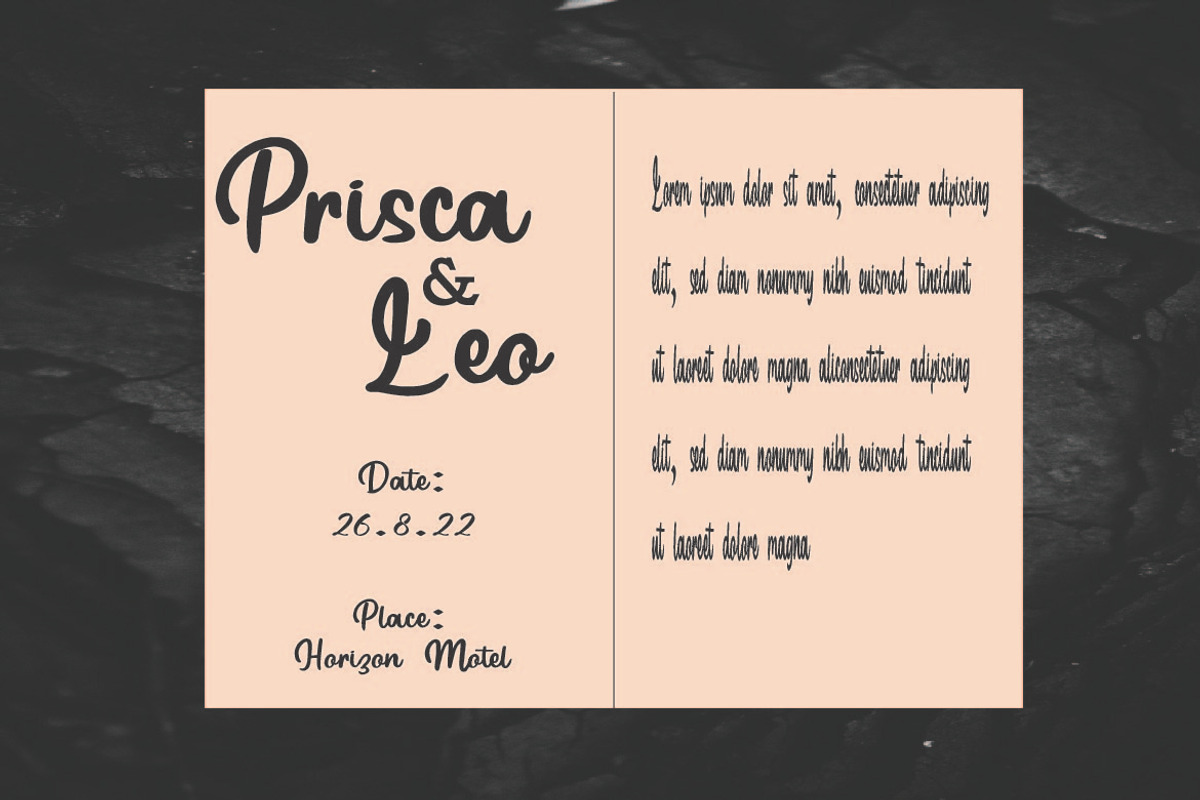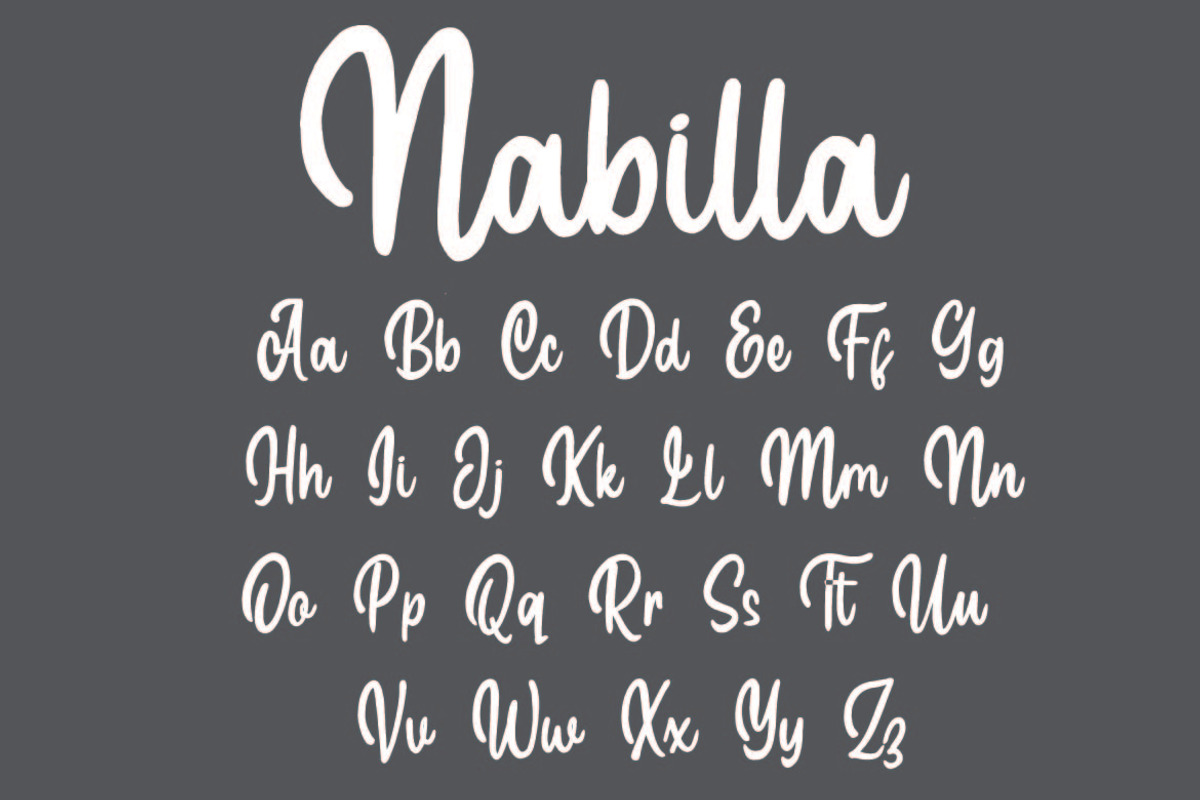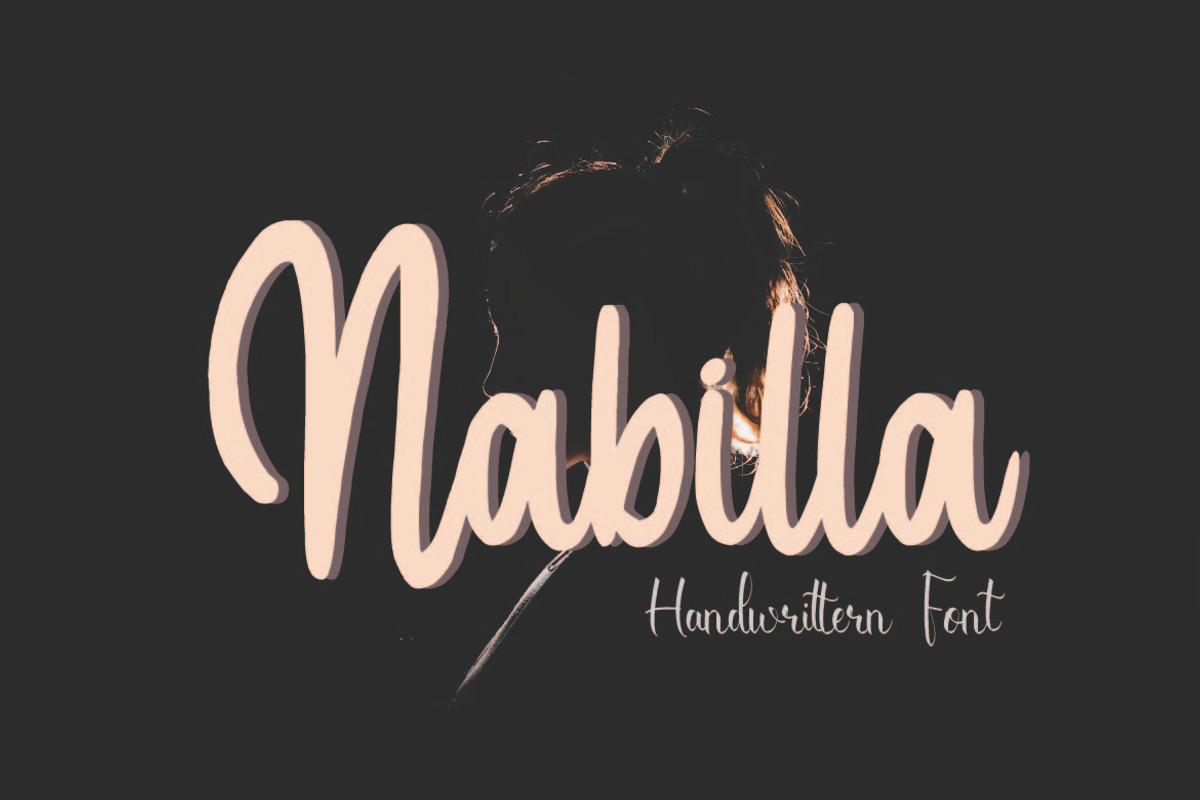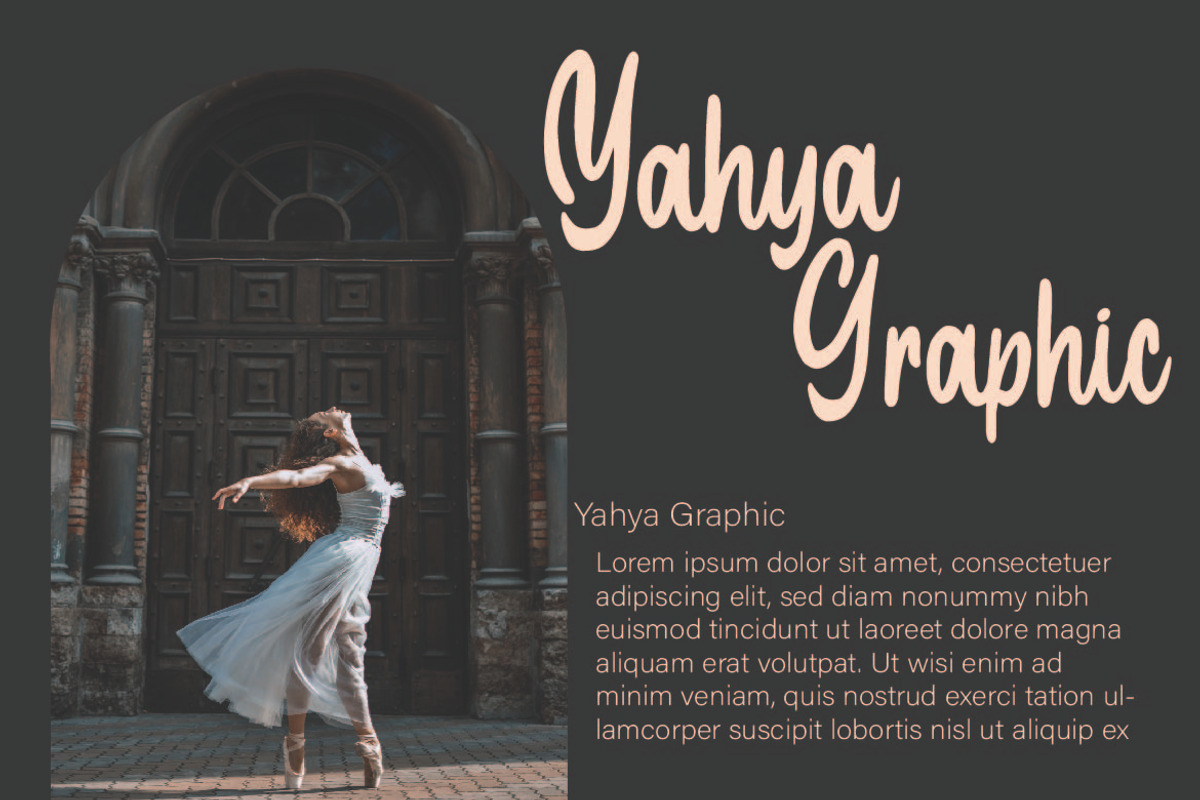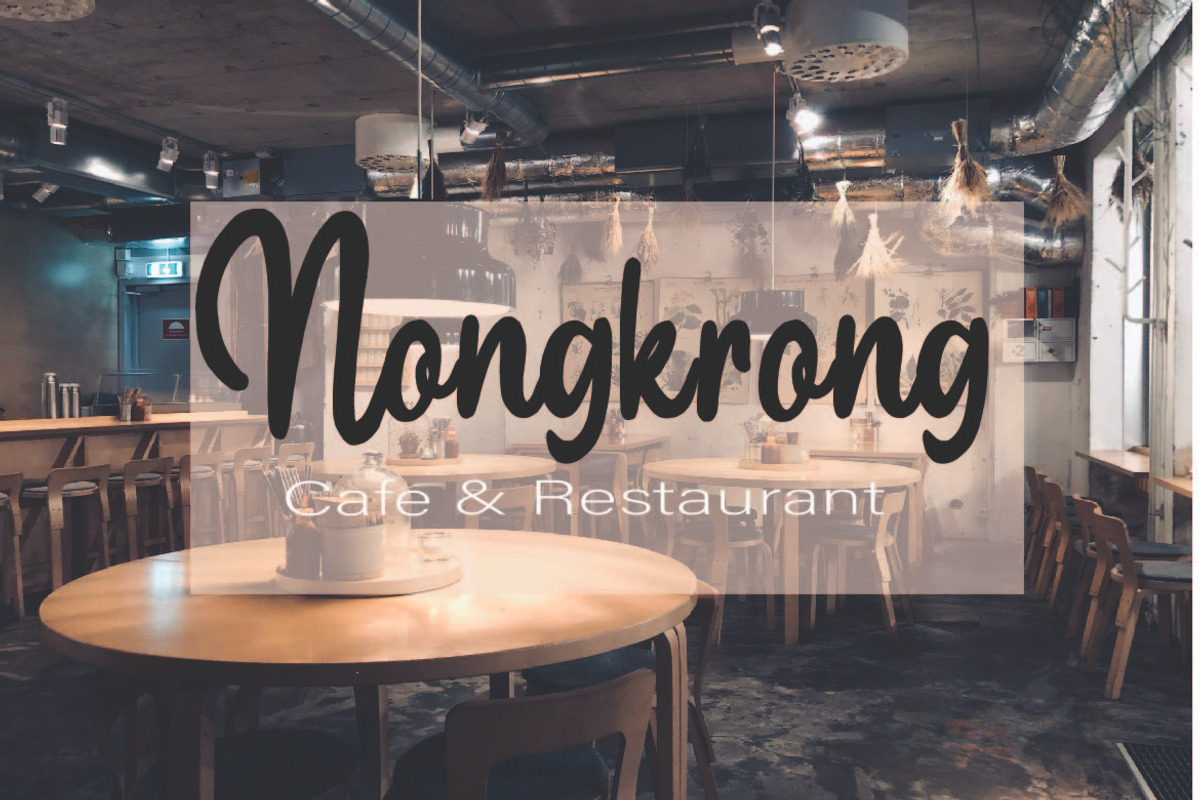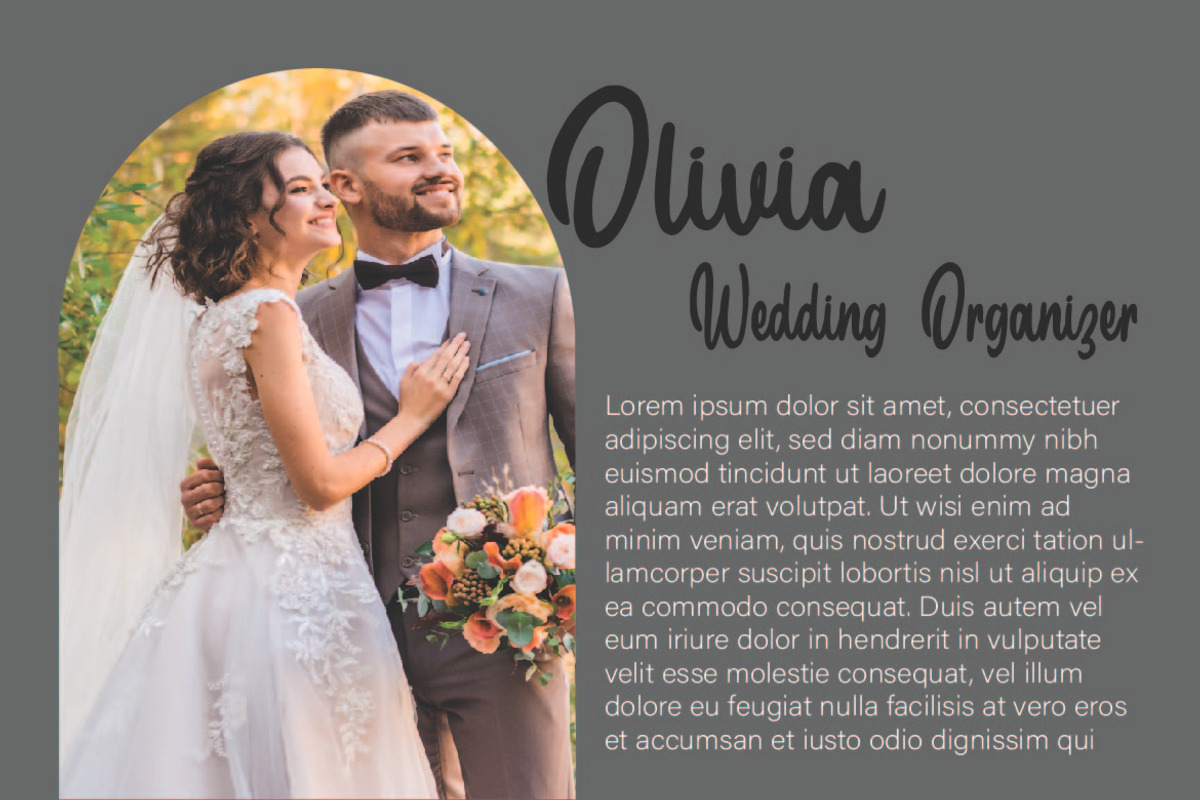
Nabilla
Nabilla is a modern Handwritten perfect for wedding invitations, calligraphy logos for branding, elegant websites, Wedding, social media posts, and anything else your heart desires!
Nabila Font. This font features beautiful, modern handwriting simplicity, that can be used to beautify your work or extraordinary creations